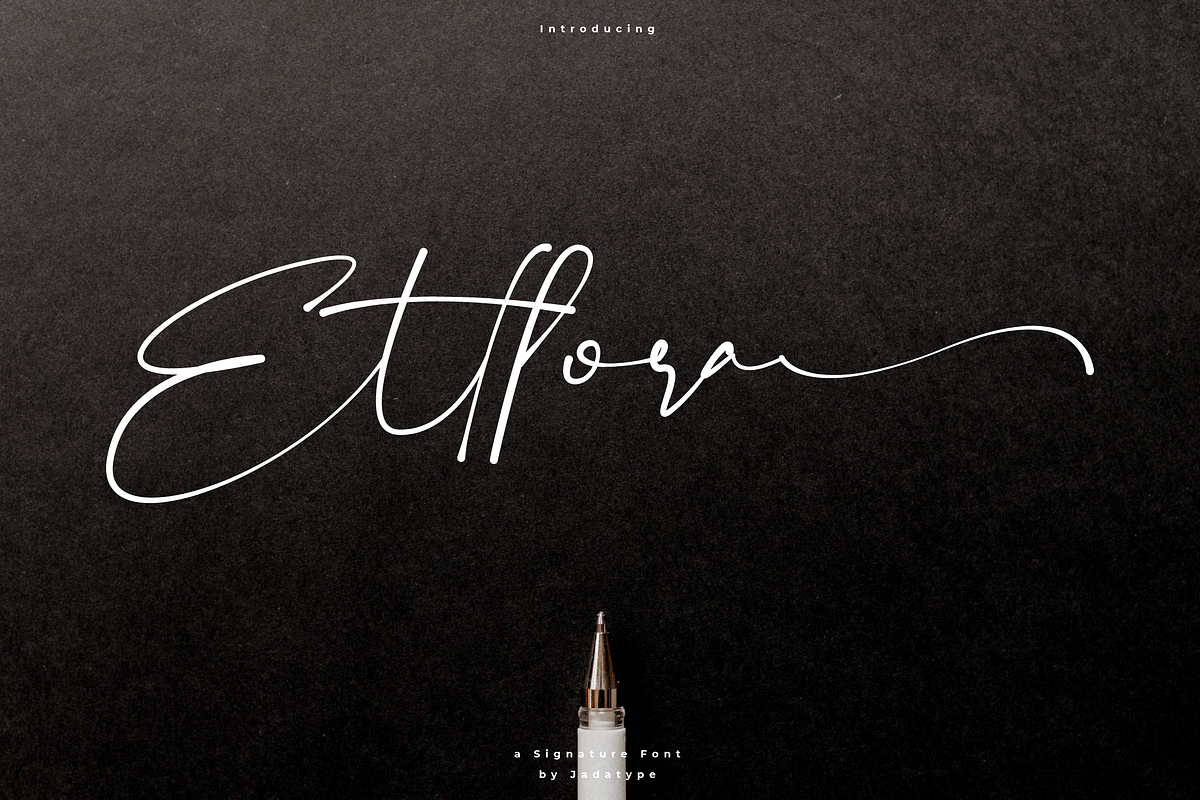
Ettlora Font | Stylish Signature Free Download
Ettlora Font | Stylish Signature Free Download is a sophisticated and elegant script typeface that brings a handwritten, signature-style aesthetic to your designs. Perfect for wedding invitations, branding, logos, and more, Ettlora features smooth, flowing curves and stylish letterforms, adding a personal and luxurious touch to any project. Its graceful design makes it ideal for projects that require a refined, professional, yet intimate feel.